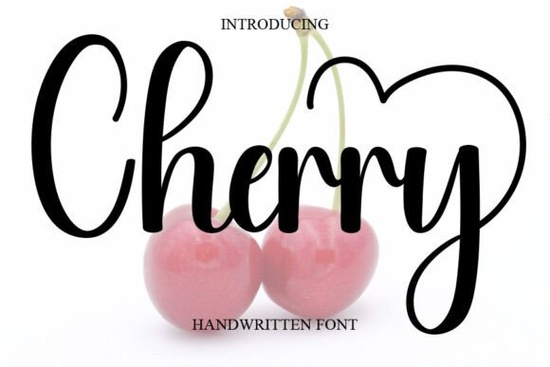
If you're looking for a friendly, handwritten script font that feels personal without being overly formal, Cherry Font is a thoughtful choice. It’s not flashy or exaggerated just softly rounded, gently slanted, and consistently legible. Designers and crafters often reach for it when they need warmth and approachability: think wedding stationery, small-batch product labels, or heartfelt greeting cards. It works especially well when you want your text to feel like it was written just for the reader not generated, not templated, but considered.
When does Cherry Font fit best?
This isn’t a one-size-fits-all script. Its gentle curves and relaxed spacing make it shine in contexts where elegance meets ease. For example:
- Wedding invites and vow books It adds sincerity without stiffness, pairing beautifully with watercolor florals or minimalist layouts.
- Small business branding Think café menus, boutique packaging, or handmade soap labels. It conveys care and craft, not corporate polish.
- Greeting cards and journal covers Because it reads clearly at smaller sizes and still feels hand-drawn.
- Fashion lookbooks or Instagram story text It softens bold photography without competing for attention.
It’s less suited for dense body copy or signage needing high legibility at distance but that’s by design. Like choosing the right pen for a note, Cherry Font is meant for moments where tone matters as much as message.
How does it compare to other script fonts on Creative Fabrica?
Not all cursive fonts behave the same way. Some are tightly connected and hard to edit; others feel too bouncy or decorative for everyday use. Cherry Font sits comfortably in the middle: open enough for easy letter separation, consistent enough for clean kerning, and light enough to pair with both serif and sans-serif companions.
If you’ve tried You Are My Rainbow Font, you’ll notice Cherry has fewer dramatic swashes and a more grounded rhythm making it easier to mix with other typefaces. Compared to Thick Font, it’s lighter in weight and airier in texture, which helps it stand out on delicate papers or pastel backgrounds. And while Enchanting Script Font leans into ornate flourishes, Cherry keeps things subtle and wearable like a favorite sweater instead of a costume.
You’ll also find it shares some stylistic kinship with Groovy Font, though Cherry avoids retro exaggeration and stays focused on quiet charm.
What do real users say about it?
Print-on-demand sellers report strong performance on Etsy and Redbubble for designs labeled “romantic,” “spring,” or “handmade.” One craft seller told us they used it for a set of “Mother’s Day tea towel prints” and saw repeat orders customers specifically mentioned how “soft” and “genuine” the text felt. Another small-batch candle maker paired it with a simple sans-serif for ingredient labels, saying it helped their brand feel “thoughtful, not trendy.”
Designers working with Procreate or Canva appreciate that Cherry includes standard OpenType features (like alternate characters and ligatures) without requiring advanced software so you can switch up the look of “a” or “g” with a few clicks, not coding.
Where to use it and where to pause
Use Cherry Font confidently for:
- SVG files for Cricut or Silhouette (it cuts cleanly at 12pt+)
- PDF invitations with embedded fonts
- Mockups in Photoshop or Figma (it renders smoothly at 72–300 DPI)
Avoid stretching it beyond its natural width or layering heavy shadows it’s designed to breathe. If you need bolder impact, try pairing it with a clean, neutral sans like Montserrat or Lato instead of forcing the script to carry extra visual weight.
For inspiration, check out how designers use Cherry Font alongside floral vectors or linen textures. Or explore how Groovy Font handles playful energy versus Cherry’s quieter tone.
Double-check the license: the standard version covers personal and commercial use including POD platforms but doesn’t allow redistribution of the font file itself. If you’re building templates for sale (like Canva-ready kits), confirm you have the extended license. Also, preview the character set: Cherry includes full Latin A–Z, numerals, basic punctuation, and common accented letters but no Cyrillic or extended diacritics.
Quick checklist before using Cherry Font:
- Test readability at your intended size (start at 18pt for print, 24px for web)
- Pair it with one supporting font no more than two typefaces per layout
- Try turning off automatic ligatures first; enable only where they improve flow
- Export final files as outlined text if sending to printers unfamiliar with custom fonts